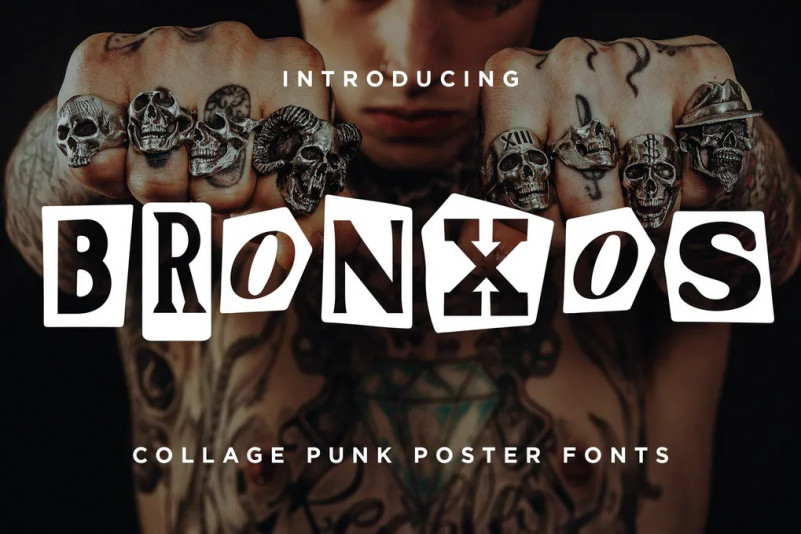
Bronxos Font
Inspired by the classic music poster back in the 90s using the letters that collaged from magazines and newspapers. We came up by the Bronxos, a compilation of variation fonts packed into one as a collage concept just like how you cut the magazine to make a poster back in the day.